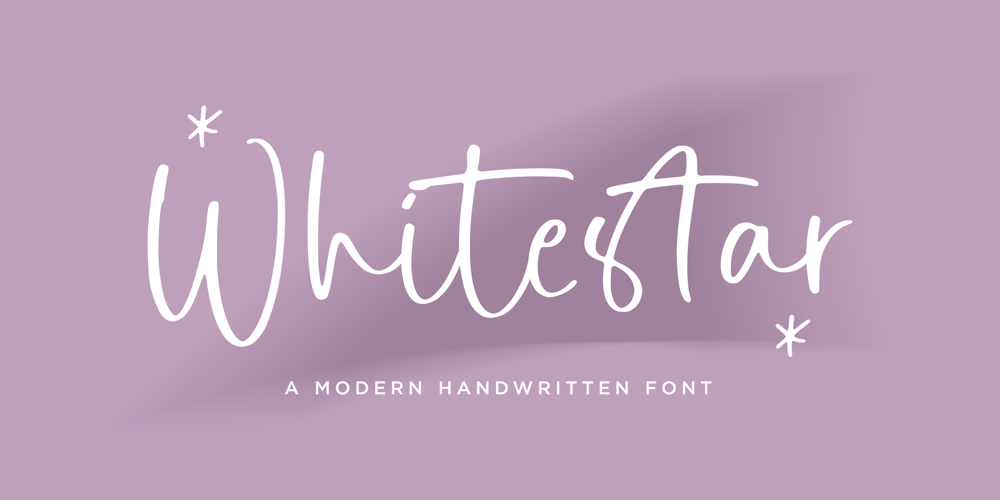
Whitestar
Whitestar font
Whitestar Font Family was designed by Restu Angga and published by Balpirick. Whitestar contains 1 styles and family package options. Whitastar is a Modern handwritten typeface that’s perfect for adding a touch to your design projects! With its natural, organic feel and unique character.Crafted with care and attention to detail, this font is incredibly versatile and can be used for a range of design projects, including logos, branding, invitations, and more. Its modern, handwritten style gives it a unique character that’s sure to make an impact.This font includes – also multilingual support – LigaturesEnjoy the font! Feel free to comment or feedback!Thank you!